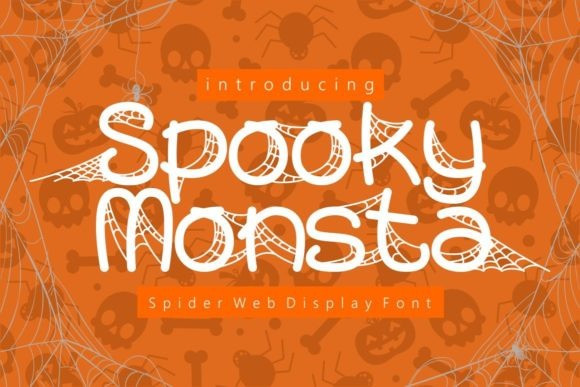
Spooky Monsta Display Font
Spooky Monsta is a spider web display font. You can use it for cartoon related designs, children games or just any creation that requires a cool and unique touch.